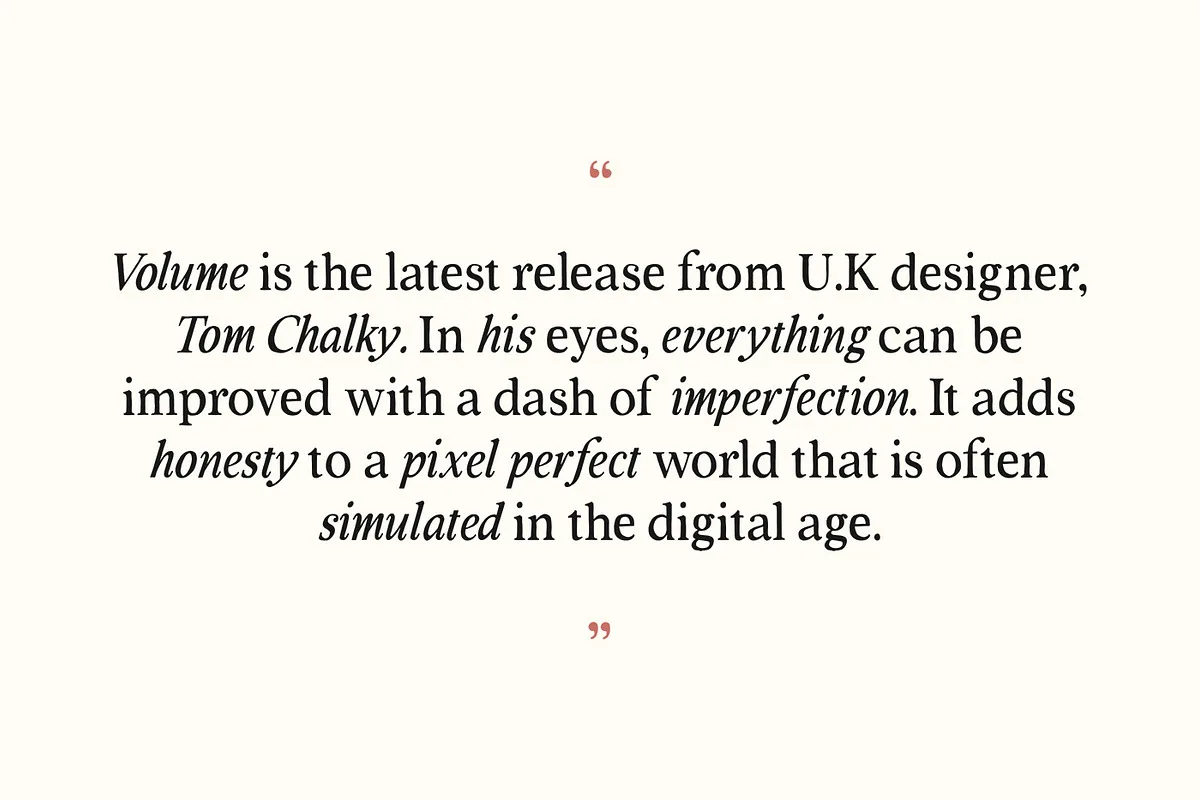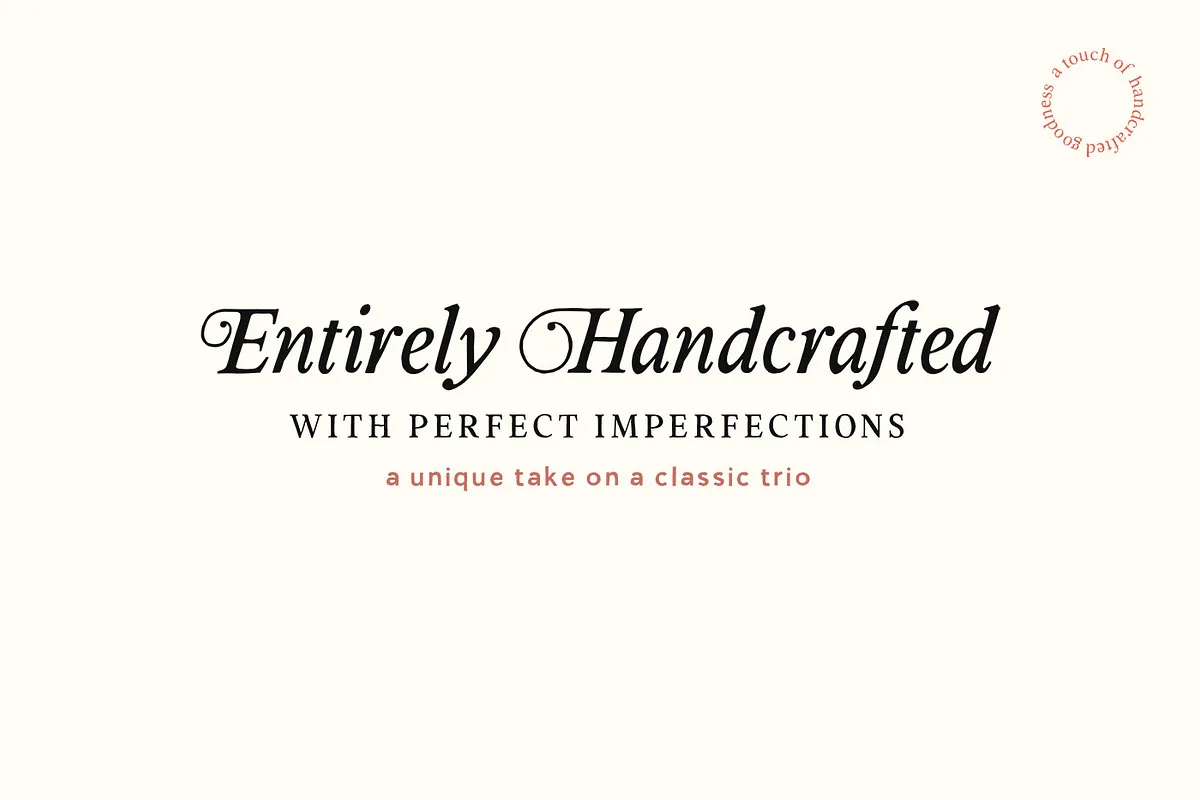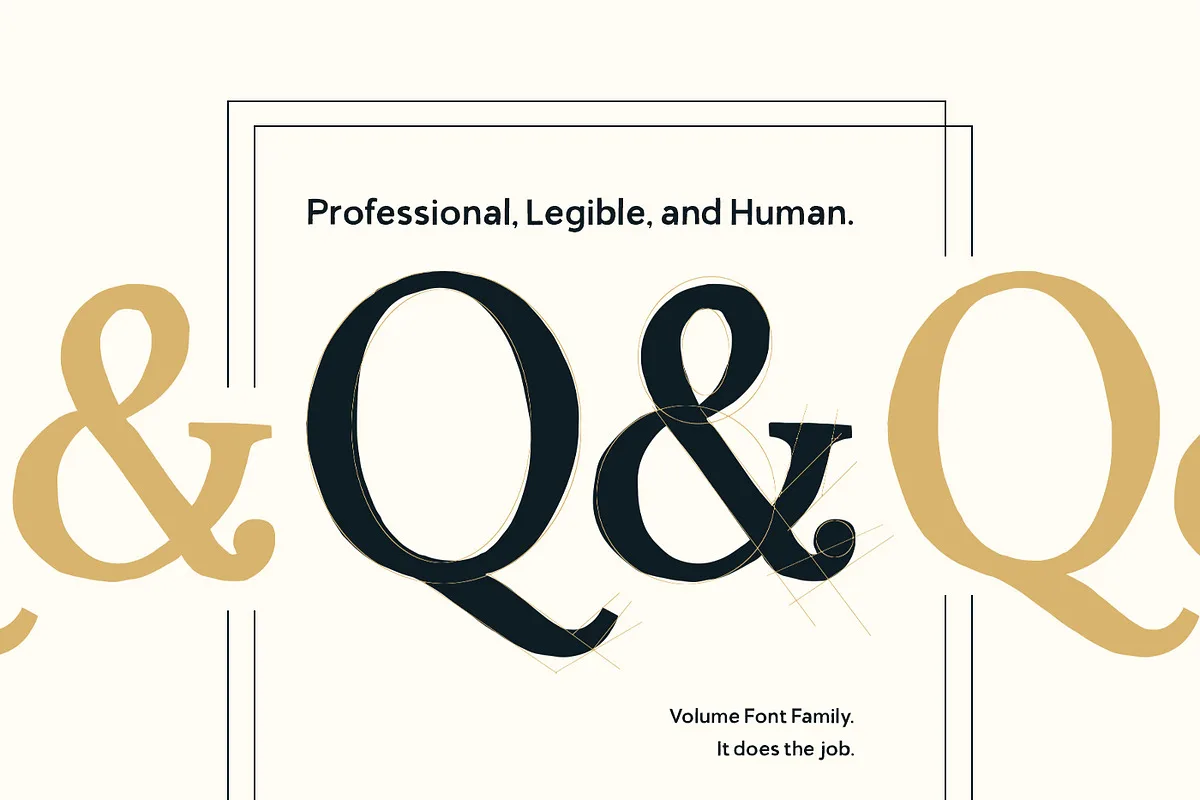
Introducing Volume! A unique take on a classic trio; A serif, an italic, and a sans. Professionally imperfect, Volume takes a formal approach to the handcrafted genre of font design. A versatile family, suitable for a vast array of design briefs!